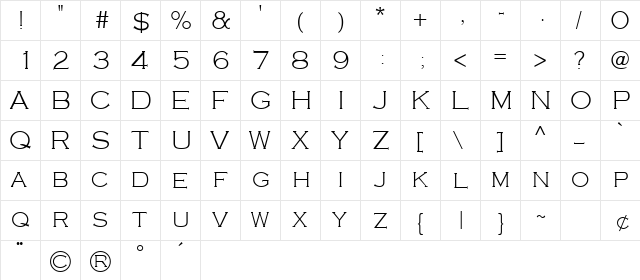
CooperPlanck2 LightSH
Design Context for CooperPlanck2 Typeface
CooperPlanck2 is a composed and adaptable typeface that performs quietly and consistently across a wide range of design contexts. The delicate stroke weight brings airiness and refinement to layouts.